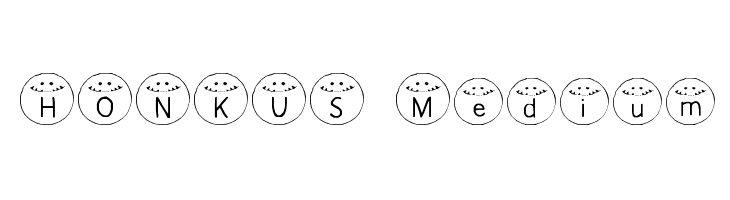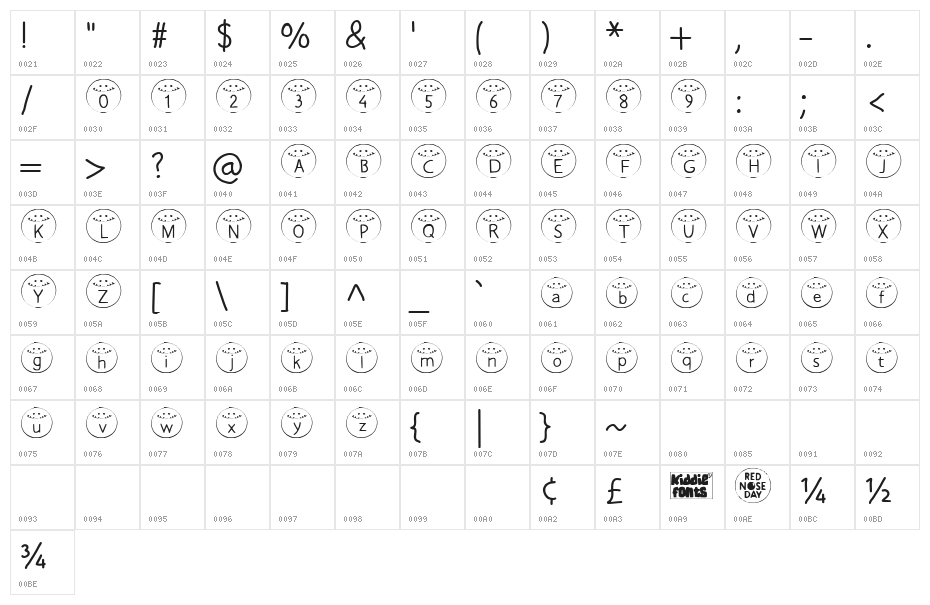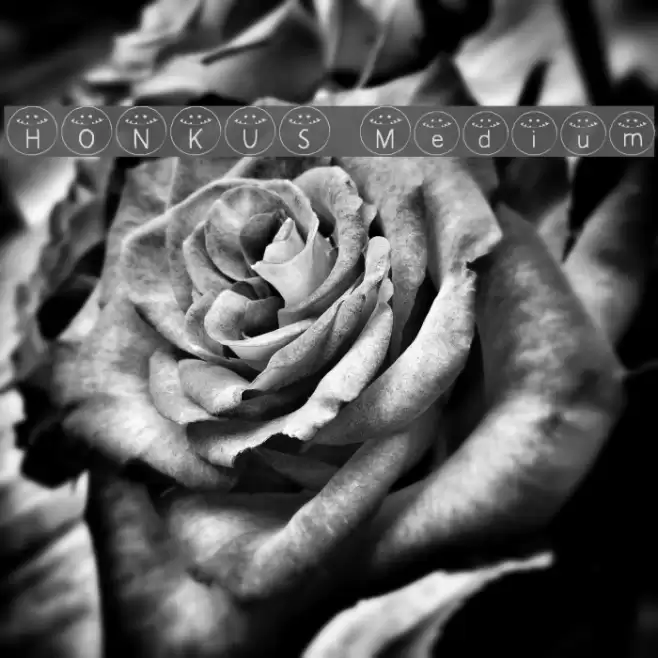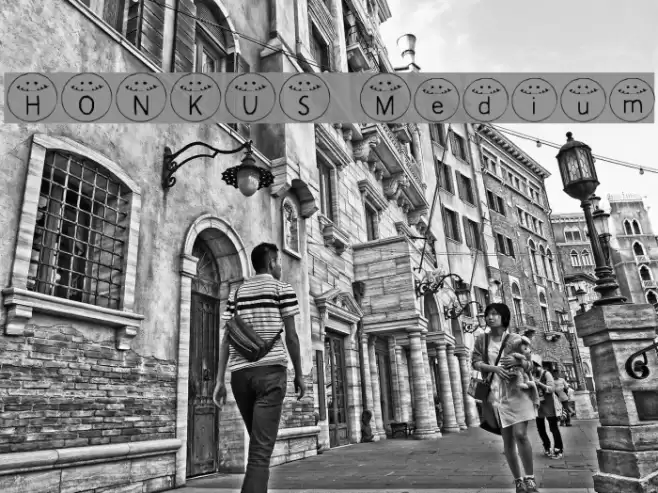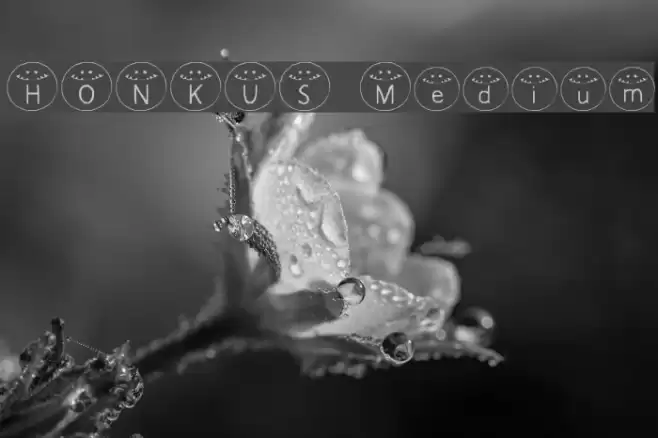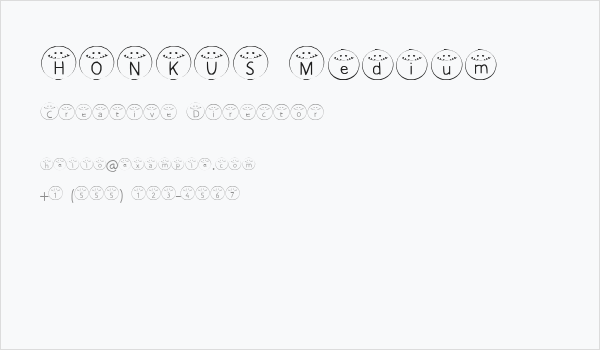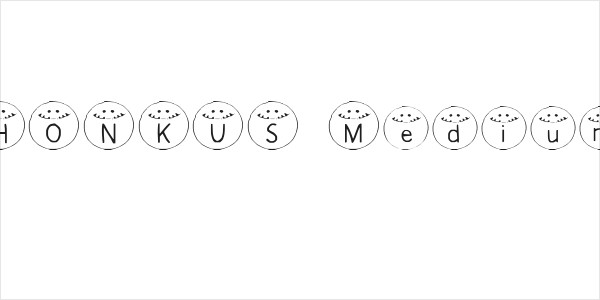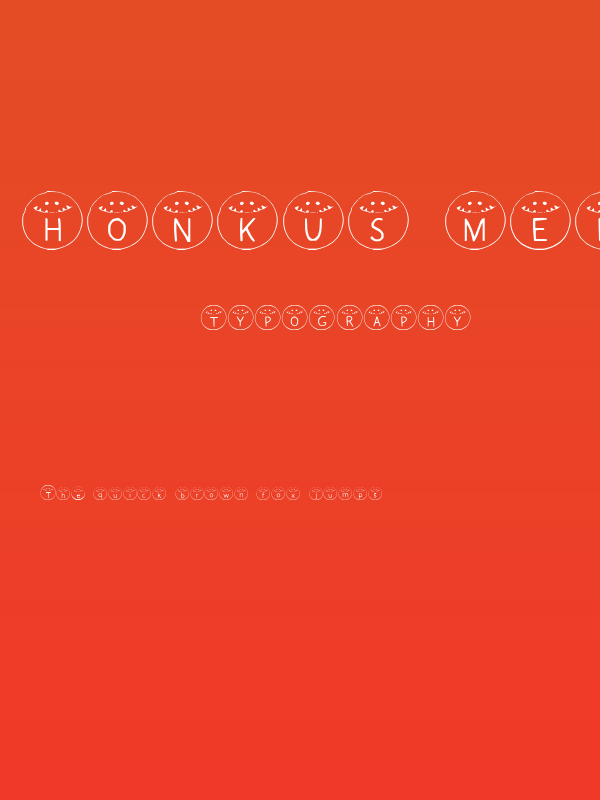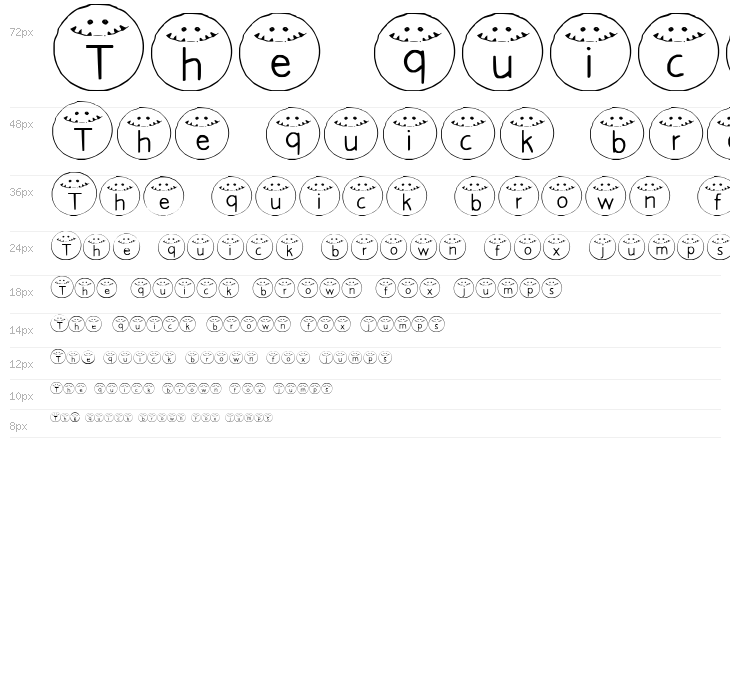
HONKUS Medium Font
HONKUS Medium Description
This playful and whimsical font features characters enclosed within circular shapes, each adorned with a simple, smiling face. The letters are clean and sans-serif, offering a modern and friendly appearance. The uppercase and lowercase letters maintain a consistent style, with rounded edges and a uniform stroke width. The numbers and special characters follow the same design, ensuring a cohesive look across all elements. This font's unique presentation makes it ideal for projects that aim to convey a sense of fun and approachability.
| Overall Style | Whimsical, Playful |
| Proposed Projects | Ideal for children's books, playful branding, greeting cards, and educational materials. |